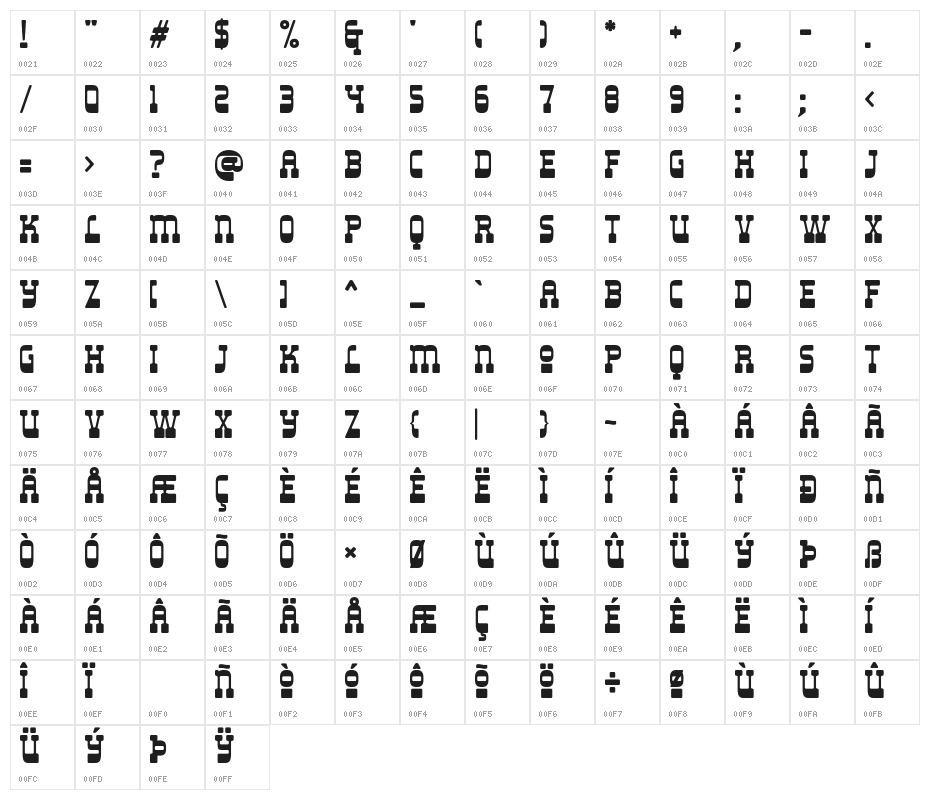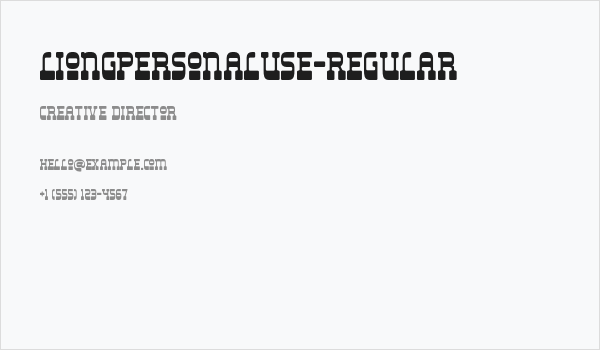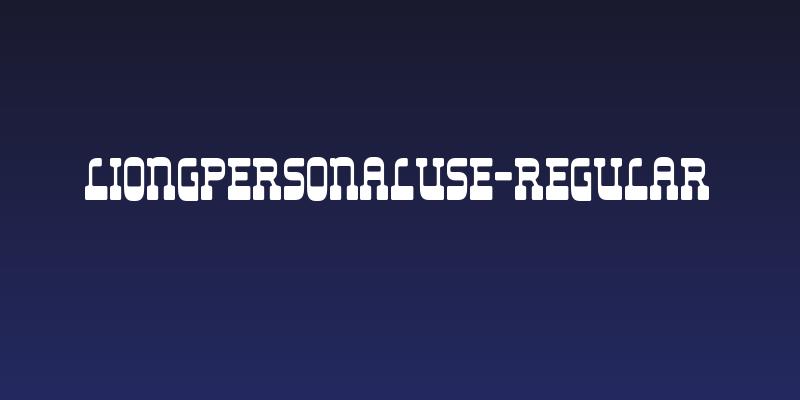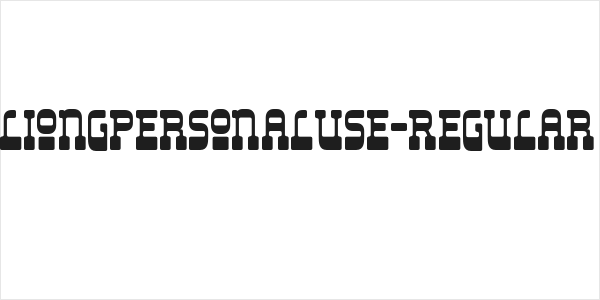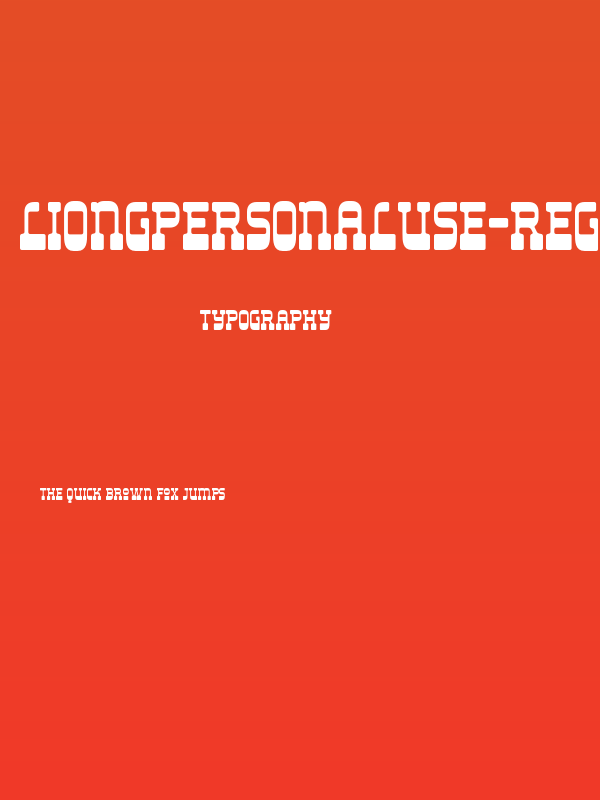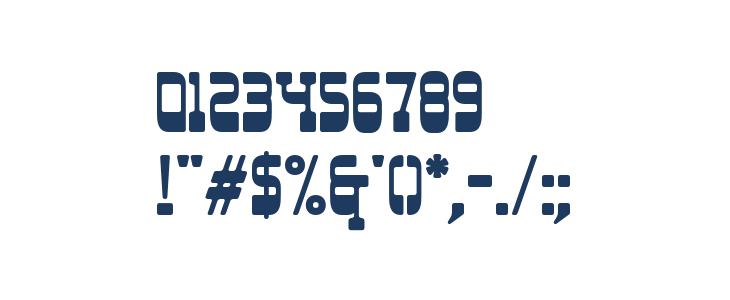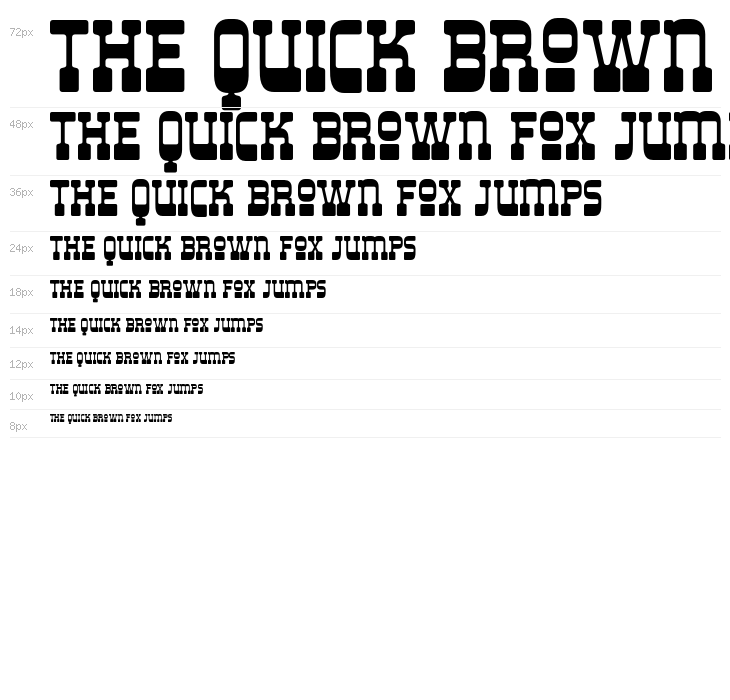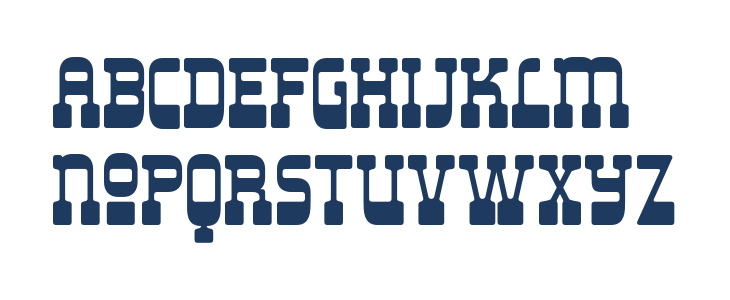
LiongPersonalUse-Regular Font
LiongPersonalUse-Regular Description
This font features a bold and robust design with a distinct blocky appearance. The characters are uniformly thick, with rounded corners that soften the overall look. The uppercase and lowercase letters maintain a consistent height, contributing to a cohesive and structured feel. The numbers and special characters are equally bold, ensuring readability and impact. The font's geometric style is reminiscent of industrial or futuristic themes, making it suitable for eye-catching designs. Its strong presence and unique character shapes make it ideal for projects that require a modern and assertive aesthetic.